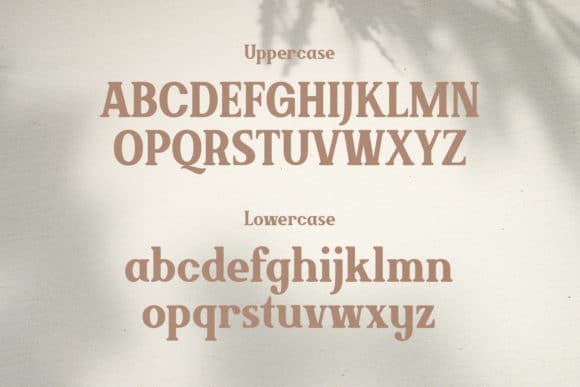
Brickson is a distinct, elegant serif font, that blends traditional influences into a contemporary aesthetic. Neatly crafted, this font can easily be matched to an incredibly large set of projects.